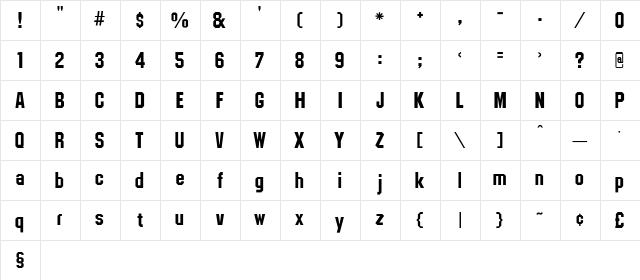
CSD-Block-Bold Regular
Design Context for CSD-Block-Bold Typeface
CSD-Block-Bold offers clean, dependable letterforms without strong stylistic allegiance, making it a practical choice for designers who need flexibility. The heavy weight commands attention and anchors typographic hierarchies.